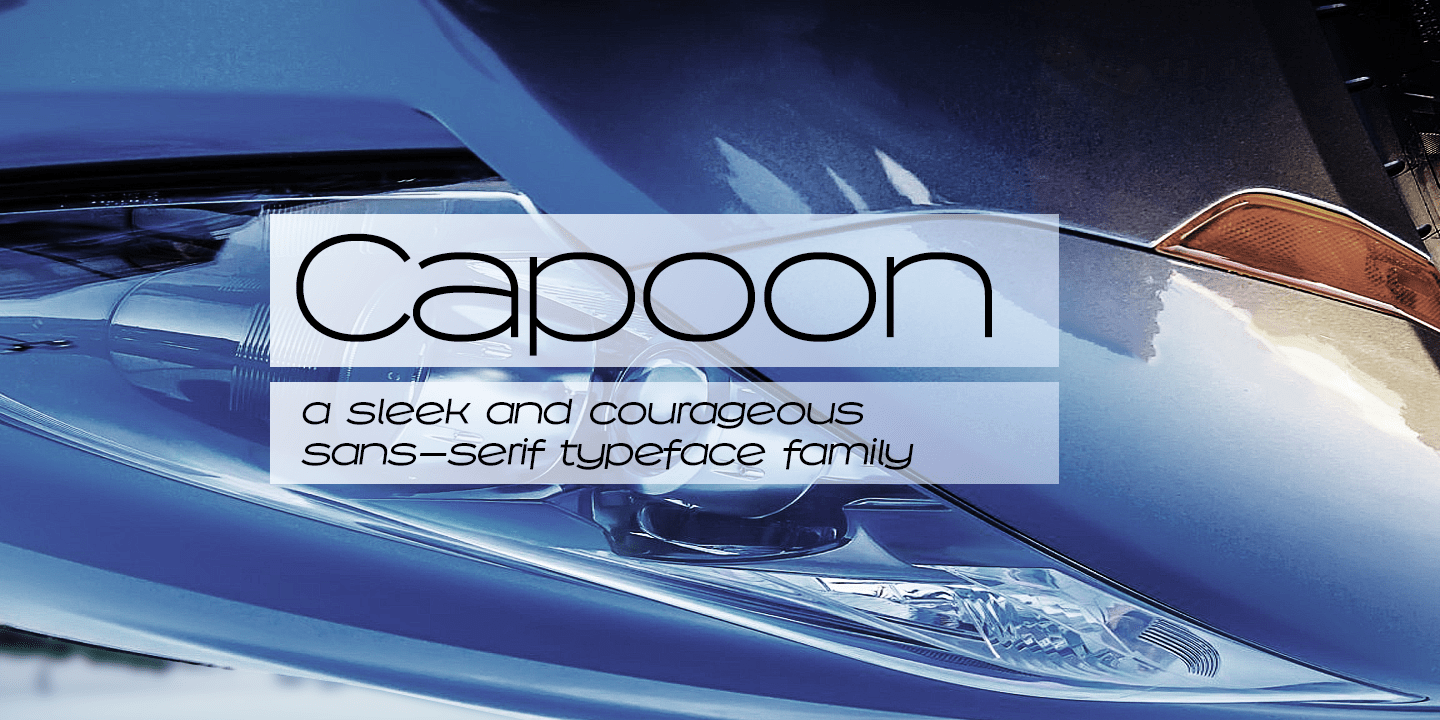
Capoon Font Family
Capoon Font Family is a distinctive and expressive font crafted to bring personality, structure, and creative energy into your projects. Capoon is a sleek and modern sans-serif typeface designed by Måns Grebäck, crafted to deliver a bold yet refined visual impact. Defined by its smooth curves and wide letterforms, Capoon creates a strong sense of movement and confidence, making it perfect for contemporary design projects.
Designer: Måns Grebäck